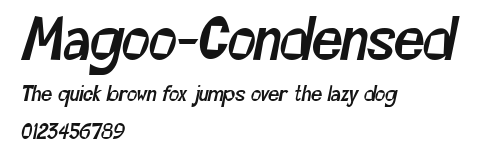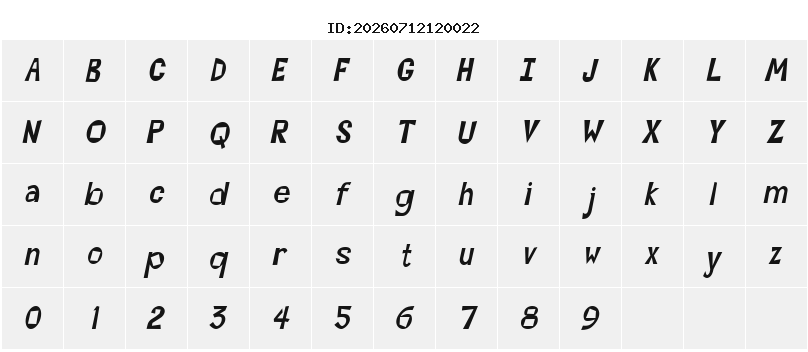
Magoo-Condensed Preview
• Font Name: Magoo-Condensed
• Font ID: Macromedia Fontographer 4.1 MagooCondensed Italic
• Full Font Name: Magoo-Condensed Italic
• Version: Macromedia Fontographer 4.1 9/25/96
• PostScript Name: Magoo-CondensedItalic
About Magoo-Condensed.ttf
Magoo-Condensed.ttf is a modern, elegant sans-serif font designed for ultimate readability and visual harmony. Perfect for branding, headlines, web design, and print materials.